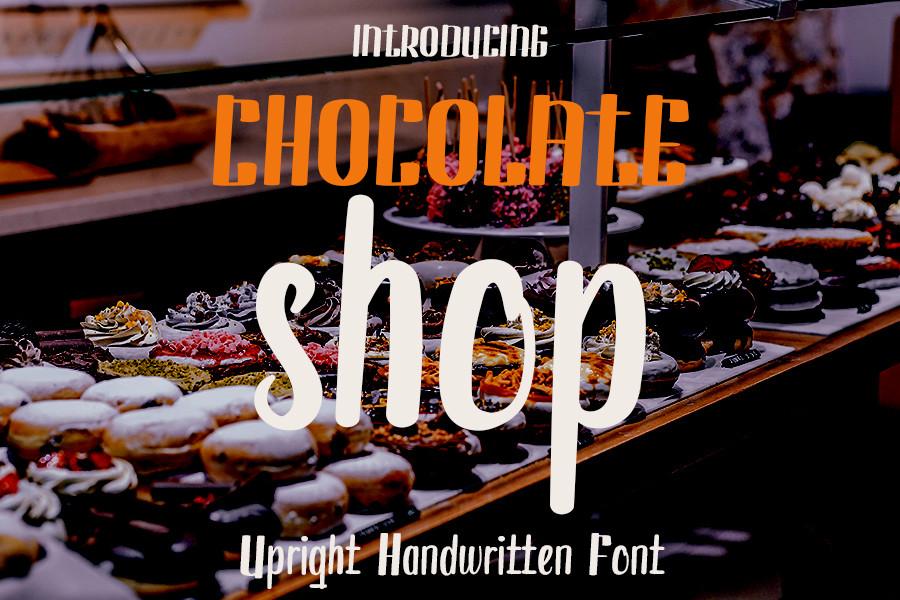
Chocolate Shop Font Description
Chocolate Shop is a cool handwritten font with a modern vibe and spotless form, inspired by a classic calligraphy. Not too thin and not too thick, balanced and varied, this font was designed to enhance the beauty of your projects.